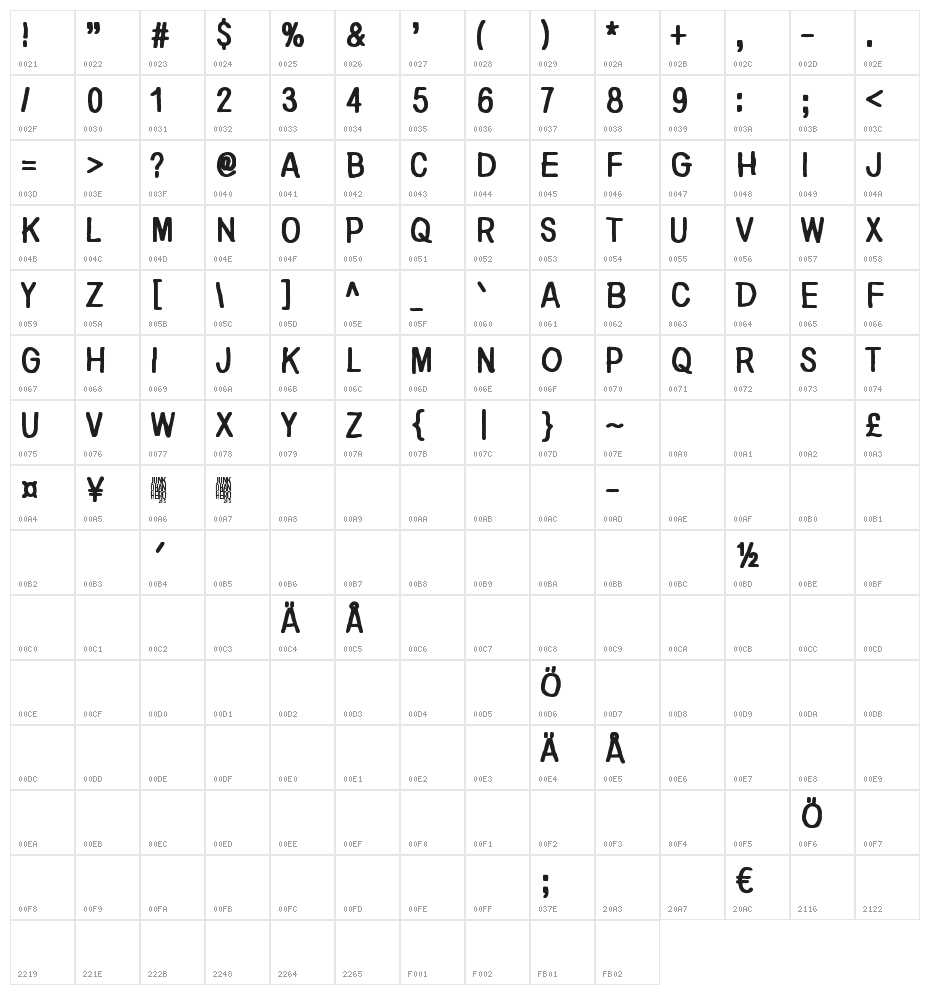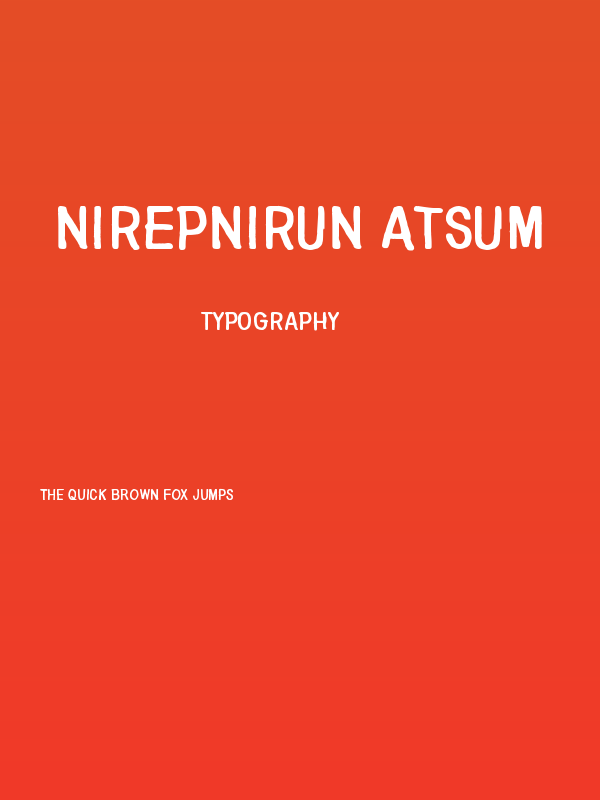
Nirepnirun atsum Font
Nirepnirun atsum Description
This font exhibits a playful and hand-drawn aesthetic, characterized by its irregular and slightly uneven strokes that give it a casual, informal feel. The letters are bold and rounded, with a noticeable variance in stroke width that adds to its charm. The uppercase and lowercase letters maintain a consistent style, while the numerals and special characters complement the overall look. This font's unique style makes it stand out, offering a friendly and approachable vibe that is perfect for creative projects.
Proposed ProjectsIdeal for children's books, greeting cards, posters, and any project requiring a fun and informal touch.